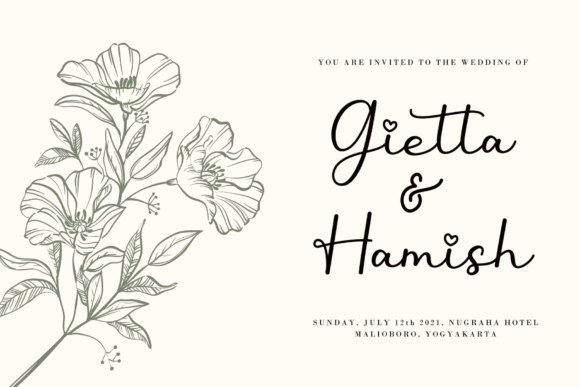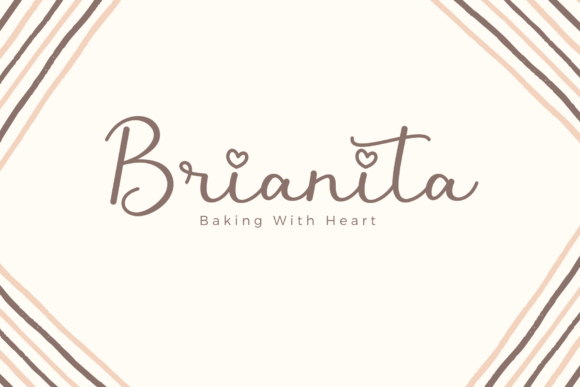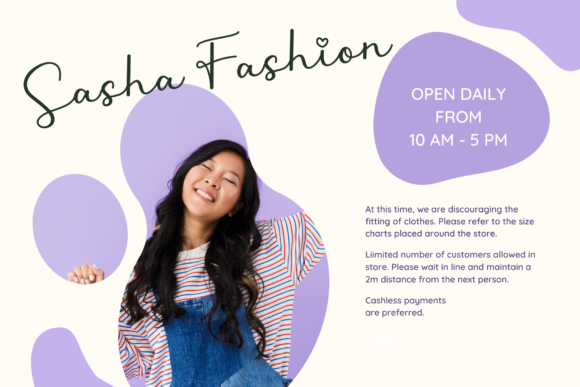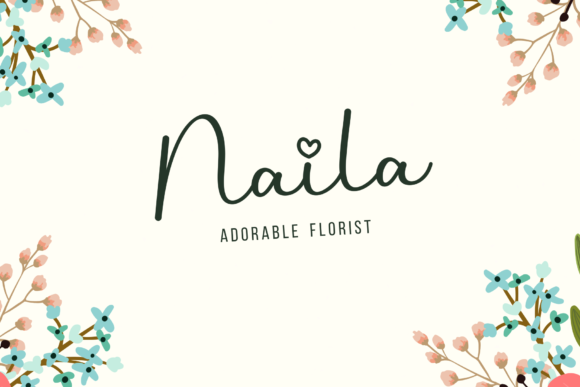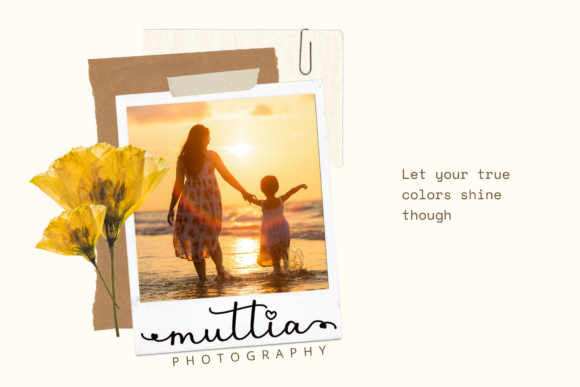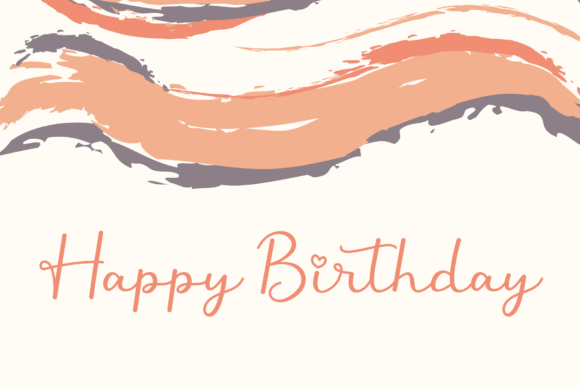
Introduction to Narllina Font
Have you ever been working on a design project and wished for that perfect touch to make it truly special? Maybe it’s a romantic wedding invitation or a luxury brand’s marketing campaign, and you’re struggling to find the right font to convey the desired feeling. Well, your search is over! Introducing the Narllina Font, a beautiful and light handwritten font that exudes a romantic vibe and adds a touch of luxury to any design project.
As a designer, you know how valuable it is to have high-quality design resources at your fingertips. The Narllina Font is a game-changer, offering a transparent background that makes it easy to work with and a wide range of glyphs and ligatures that can be accessed with ease, thanks to its PUA encoding.
Key Features of Narllina Font
- Unique, elegant script font with a transparent background
- Perfect for designs requiring a sophisticated, handwritten touch
Honest Review: Narllina Font
As a designer, I’m always on the lookout for high-quality design resources that can elevate my creative project. Recently, I had the chance to work with the Narllina Font, and I’m excited to share my honest review.
- The Narllina Font has a beautiful, elegant design that works well for headings and titles.
- The font is highly customizable, making it easy to adjust the style to fit my design needs.
- The font may not be suitable for large blocks of text, as the transparent background can make it difficult to read.
- The font family is relatively small, so users may need to download additional weights or styles to achieve the desired effect.
Overall, I’m impressed with the Narllina Font’s high quality and flexibility. While it may have some limitations, it’s a great addition to any designer’s toolkit. If you’re looking for a unique and elegant font to elevate your creative project, the Narllina Font is definitely worth checking out.
To get the most out of the Narllina Font, use it on a transparent background to create a clean and minimalist design. You can also experiment with different font sizes and styles to add visual interest to your project.
The Narllina Font is perfect for creative projects such as logos, business cards, and social media graphics. Its high quality and versatility make it a great addition to any design project.